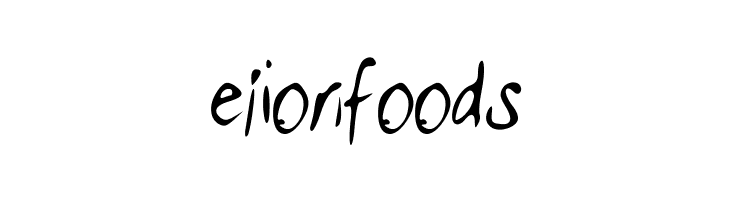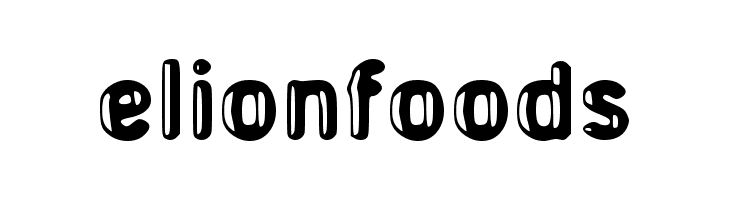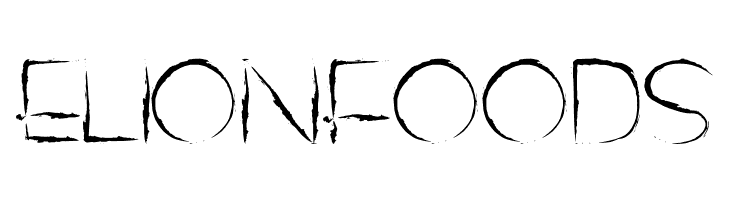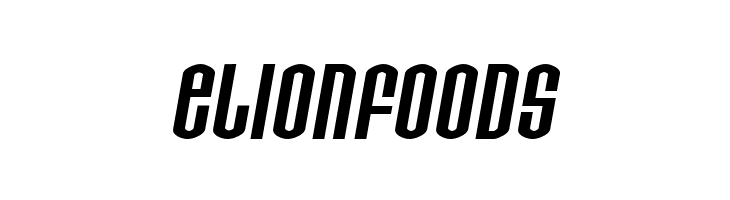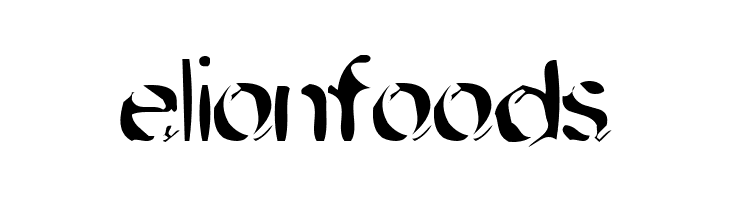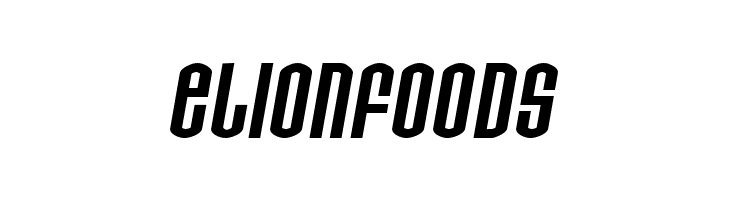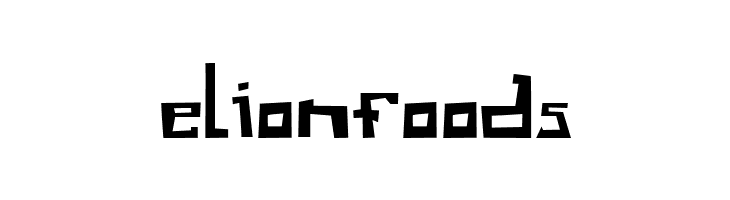
A bold, condensed font with a strong vertical emphasis and modern aesthetic.
A bold, geometric font with a modern, retro flair and tight character spacing.
A bold, italic, and condensed font with a modern and dynamic style.
A bold, italicized font with a sleek, modern appearance.
A bold, slanted font with a modern and dynamic style.
A distressed, grungy font with rough, uneven edges and a hand-drawn look.
A distressed, grunge-style font with rough, jagged edges and a bold appearance.
A bold, angular, and geometric font with a dynamic and edgy style.
A dynamic, handwritten font with playful and irregular letterforms.